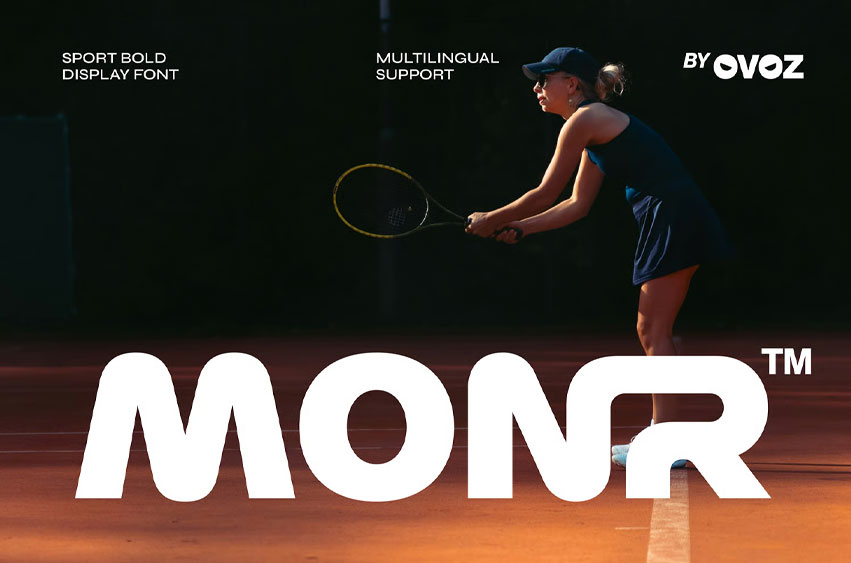
Monr Font is a sport-bold display font crafted with smooth curves and a powerful structure, delivering a clean yet athletic punch in every design. Its rounded strength and confident silhouette make it ideal for sports branding across football titles, baseball graphics, basketball posters, soccer campaigns, racing visuals, and any sporty layout that requires bold clarity with a modern twist. MONR blends athletic precision with approachable energy, making it a strong choice for fitness promotions, gym branding, golf tournaments, and performance-driven editorial designs focused on power and style.
Built for competitive and high-energy visuals, MONR excels in bold sport applications such as event branding, race promotions, hockey tournament graphics, fight event posters, and dynamic athletic campaigns. Its balanced weight and dynamic flow add a commanding presence to sporty identities and high-impact visual systems. Whether used for race branding, fitness-focused designs, or multi-sport promotional visuals, MONR delivers a solid, energetic aesthetic that amplifies movement and strengthens every athletic message.
Bold Moves, Strong Letters — where dynamic sport energy meets modern precision to create a fearless competitive identity.